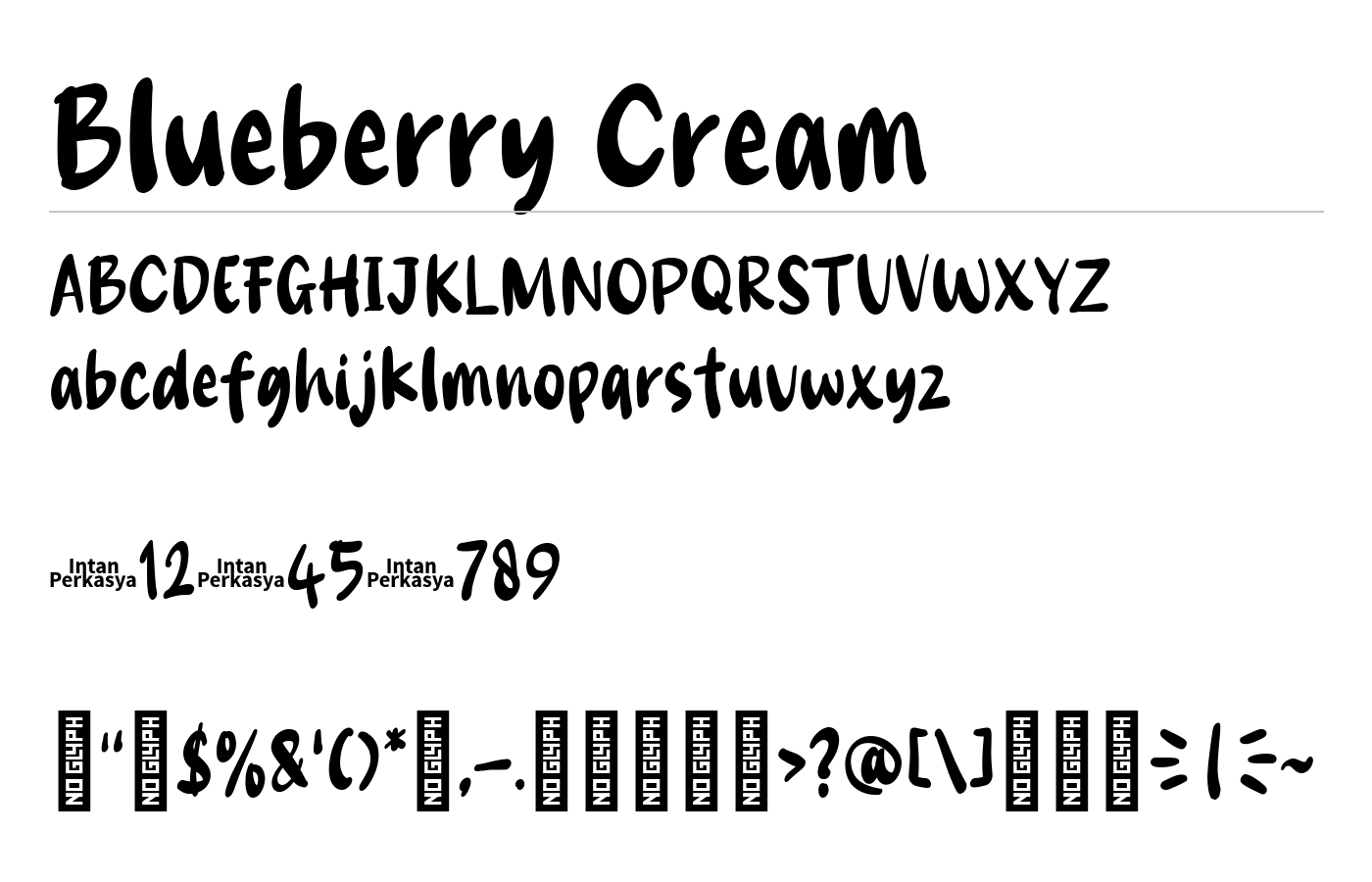
Blueberry Cream is a lively, casual handwritten sans serif font with a friendly and approachable vibe. Its medium weight, rounded forms, and playful letter shapes make it ideal for creative designs that seek a personal, informal touch. This font works beautifully in invitations, children's books, branding, and social media where a warm, fun, and engaging feel is needed.
Blueberry Cream Font
About Blueberry Cream Font
| Font family | Blueberry Cream Font |
| Designer | David - Perkasya |